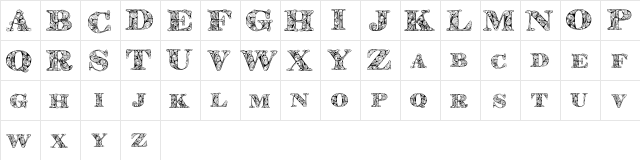
KahirPersonalUse Regular
Design Context for KahirPersonalUse Typeface
KahirPersonalUse is a composed and adaptable typeface that performs quietly and consistently across a wide range of design contexts.